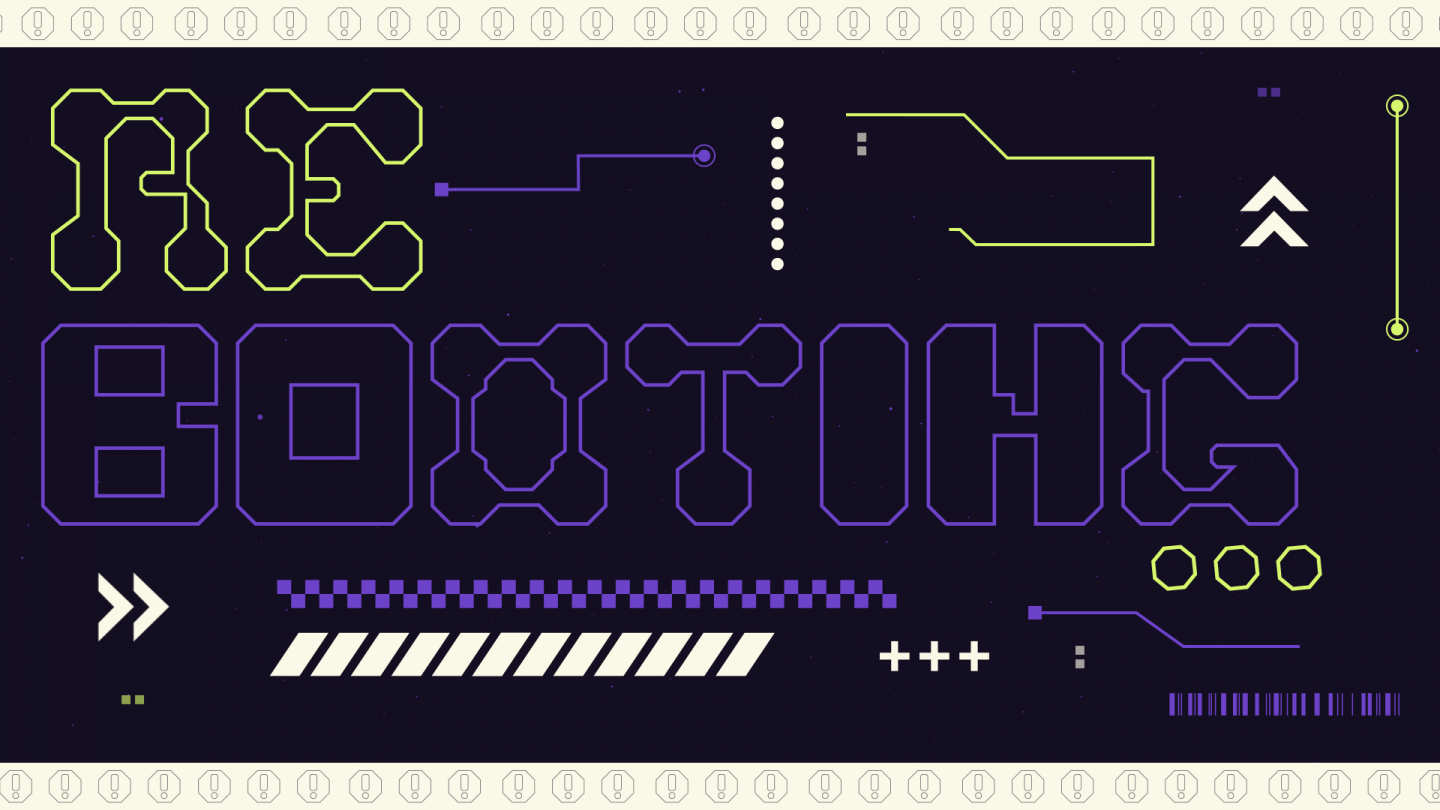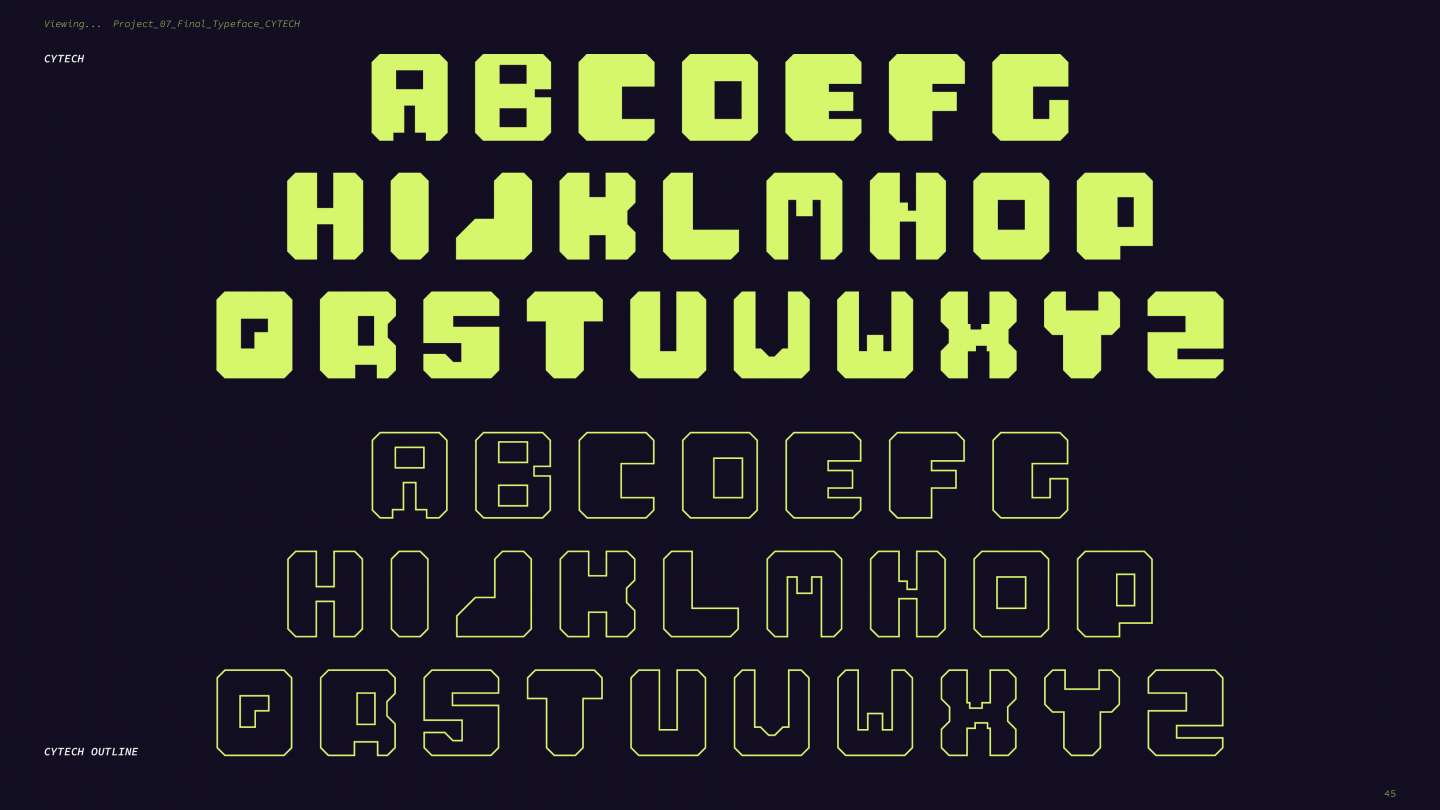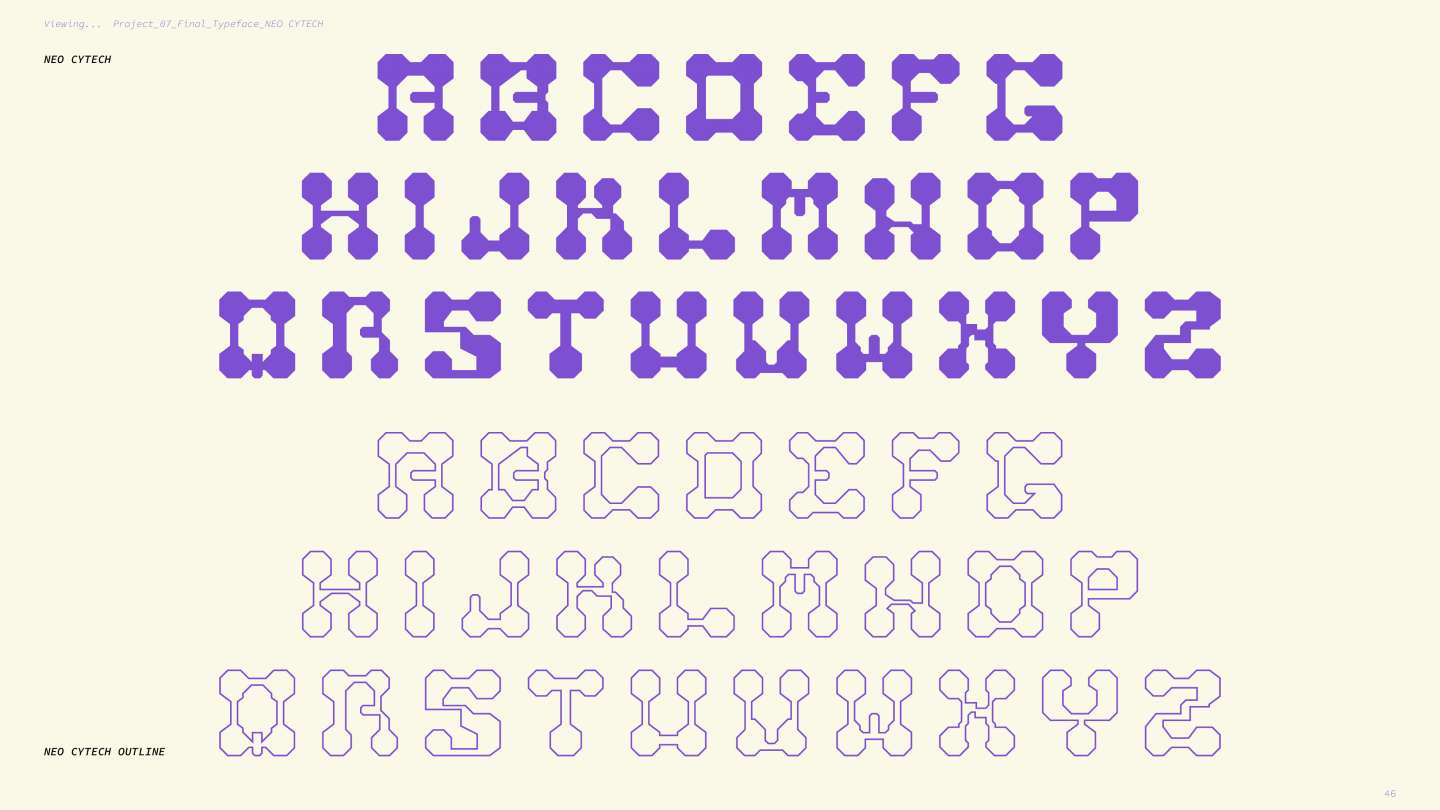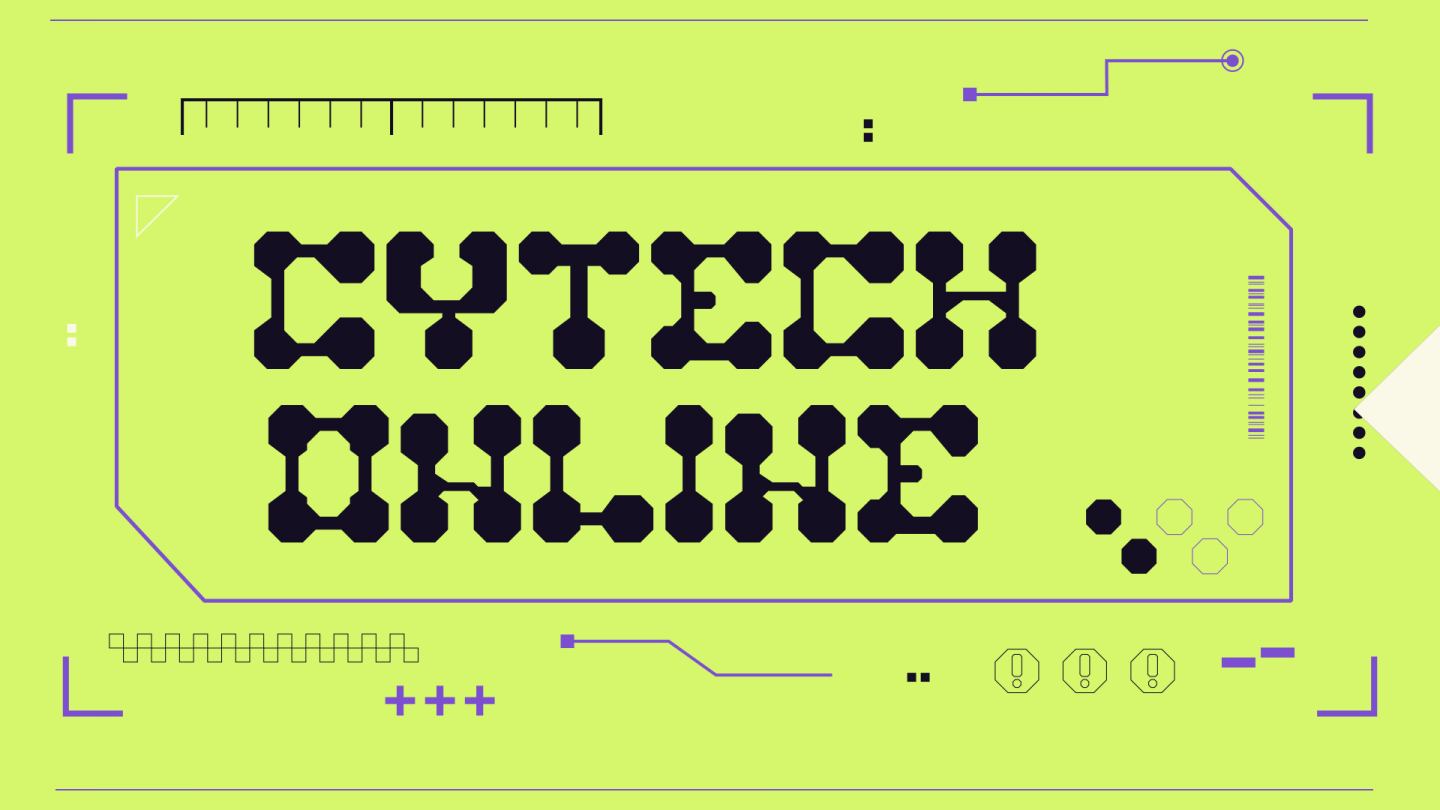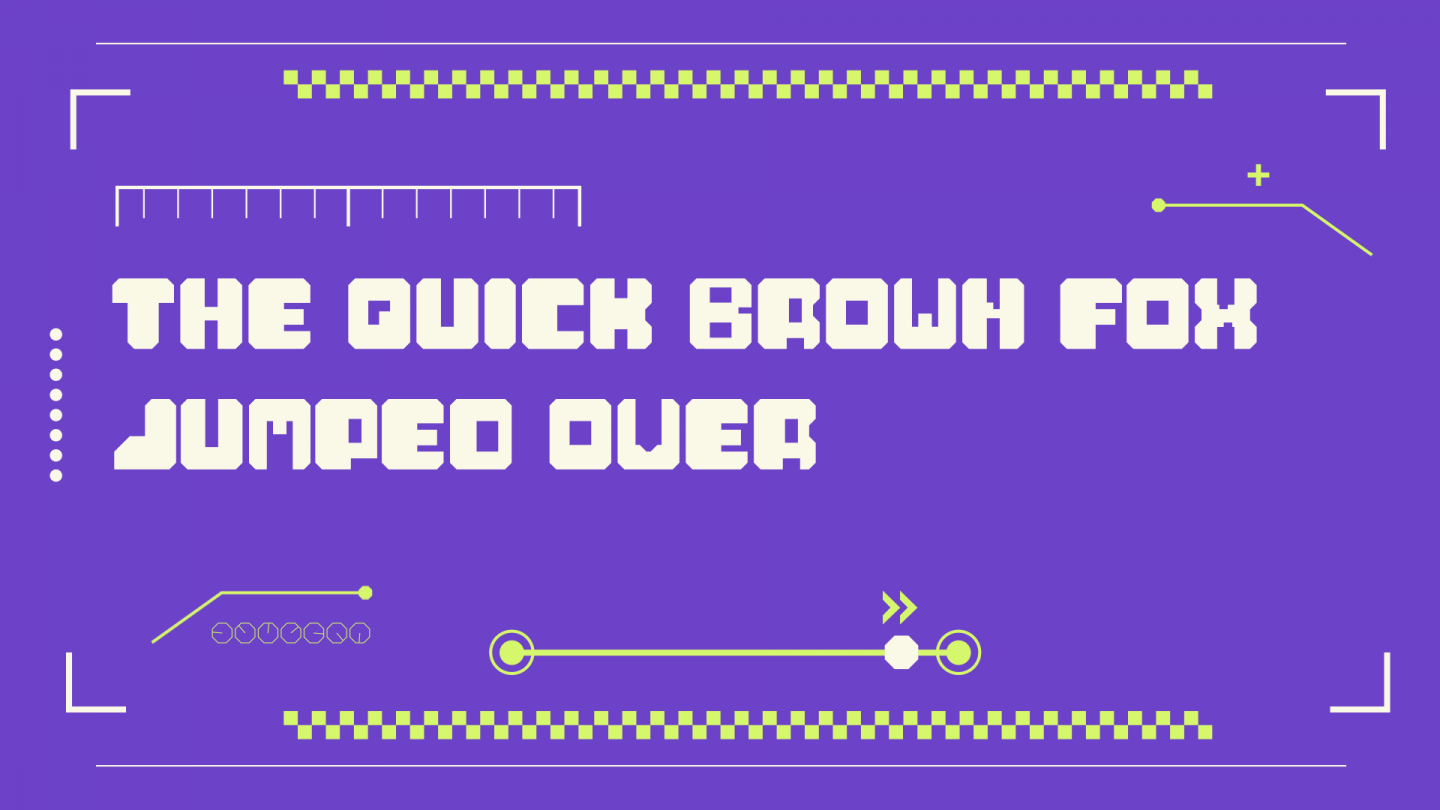
CYTECH Typeface Isis Torres CYTECH is a display typeface inspired by cybernetic themes, featuring two versions: CYTECH and NEO CYTECH. A motion video was made for the project to showcase the final specimen. Student Isis Torres Major Motion Design Course Many Types of Creativity Instructor Zipeng Zhu Year 2026 Tags Motion Design, Typography Share twitter facebook link